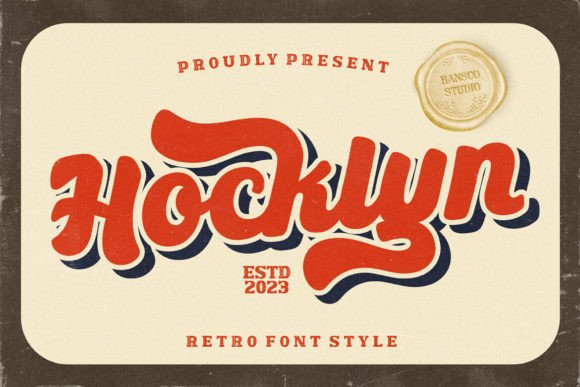
Journey back to the golden era of retro typography with Hocklyn Font, a captivating script font designed to add a touch of vintage charm to your creative projects.
Hocklyn Font is a lettering retro vintage font boasting a captivating charm that will transport you to the golden era of typography. This exquisite font is meticulously crafted to capture the essence of vintage design, with its elegant curves and stylish swashes that evoke a sense of nostalgia and sophistication.
With Hocklyn Font, you'll unlock a treasure trove of creative possibilities. Let your imagination soar as you craft stunning logos, eye-catching social media posts, and heartfelt invitations. Transform your designs into works of art with Hocklyn Font's enchanting vintage appeal.
Elevate your quotes and messages to new heights with Hocklyn Font. Whether you're creating inspirational quotes for your blog, heartfelt messages for loved ones, or captivating captions for your social media posts, Hocklyn Font will add an aura of elegance and charm that will capture hearts and leave a lasting impression.
Hocklyn Font's versatility extends beyond the digital realm. Embark on a creative journey as you bring your designs to life in the physical world. Create personalized greeting cards, decorate your home with unique wall art, or design eye-catching posters that reflect your personal style. Hocklyn Font is your gateway to a world of endless creative possibilities.
Immerse yourself in the world of Hocklyn Font and discover a font that will ignite your creativity and transform your designs into timeless masterpieces. Embrace the allure of vintage typography and embark on a creative adventure that will leave you spellbound.